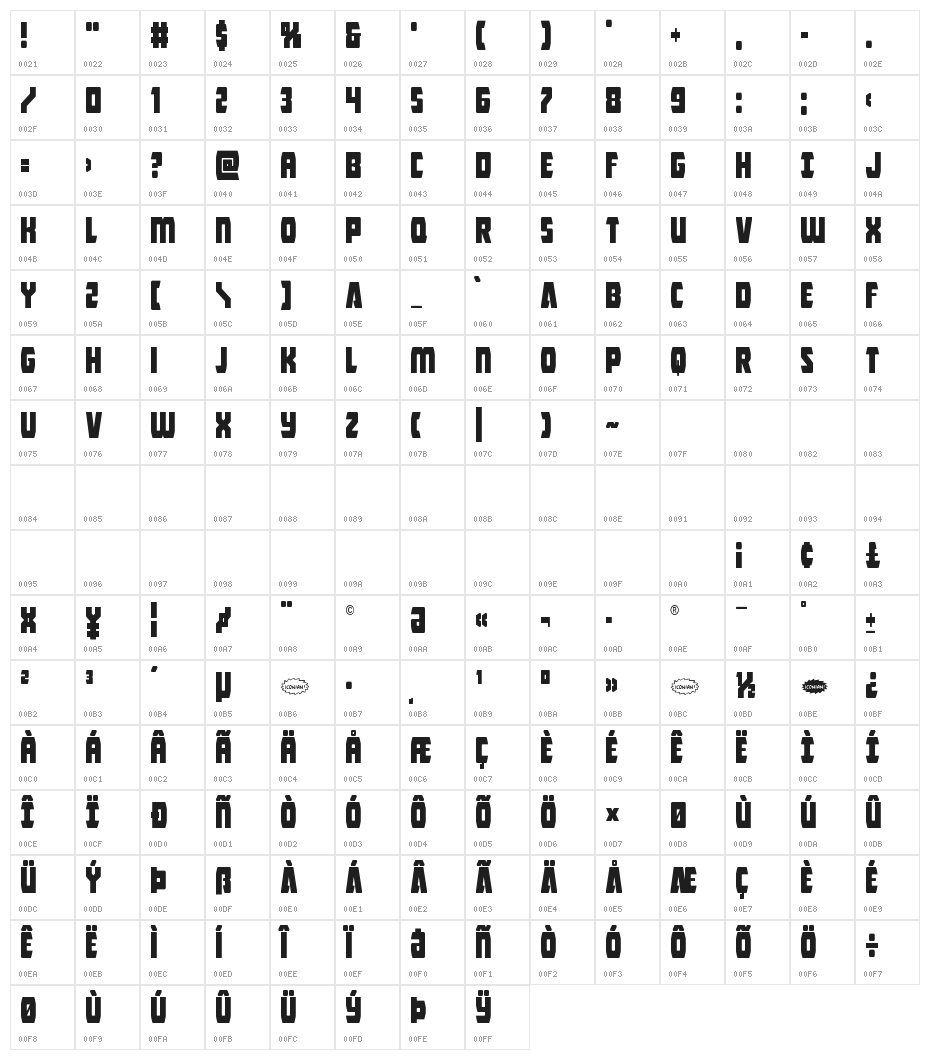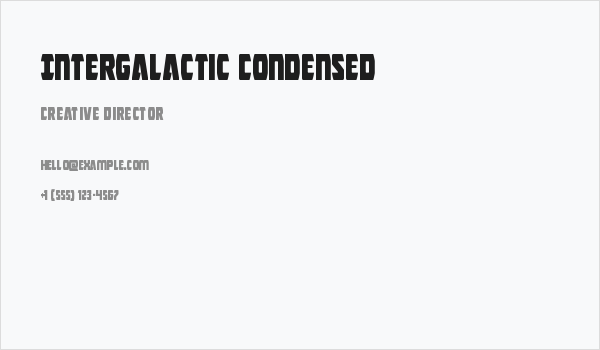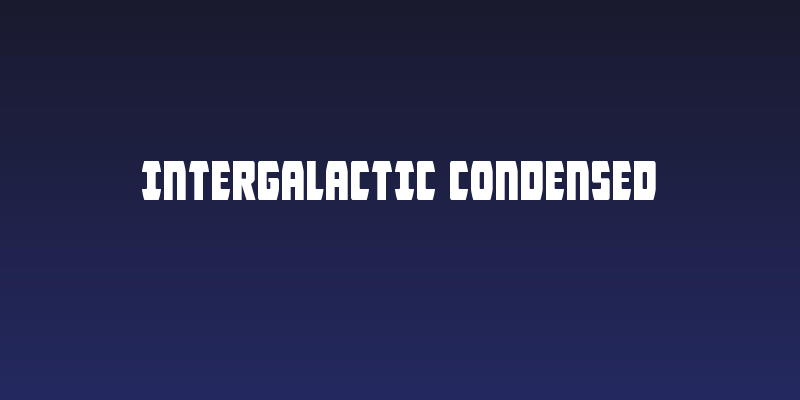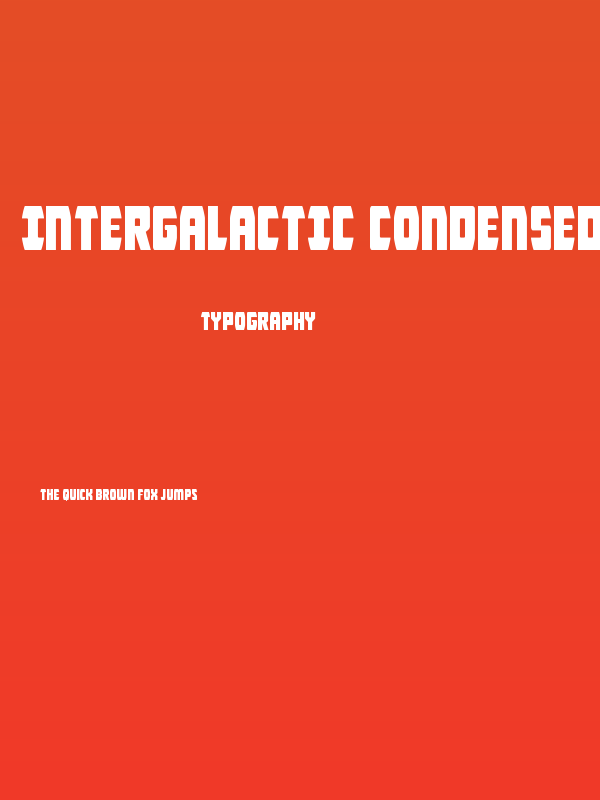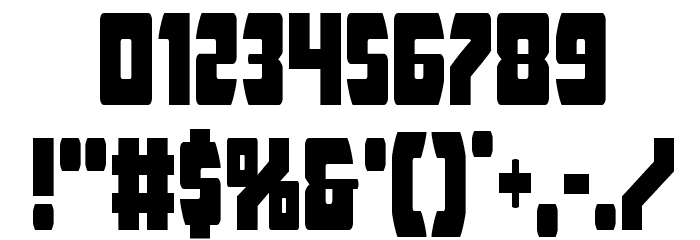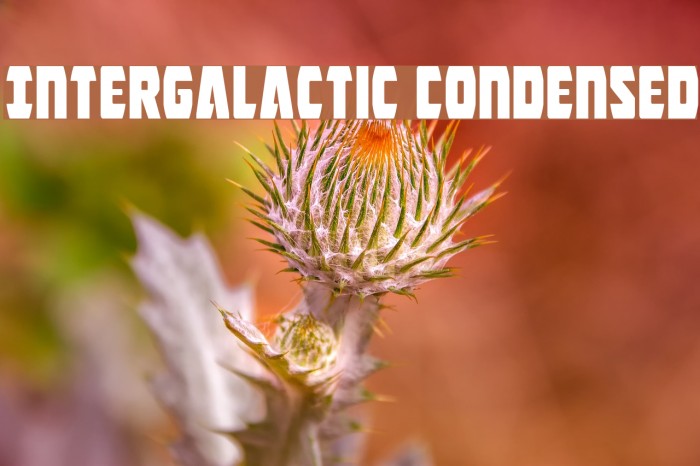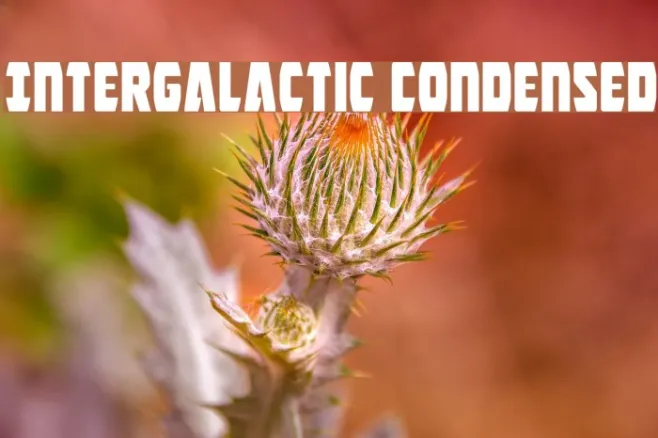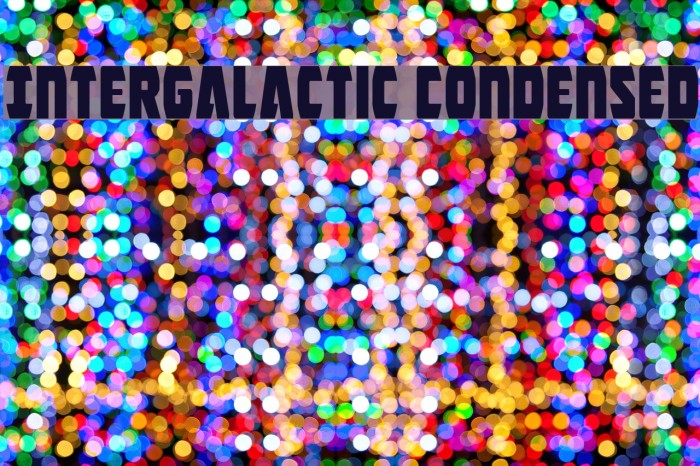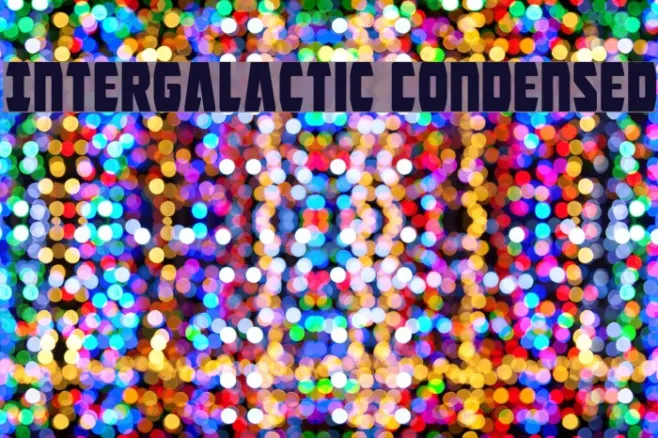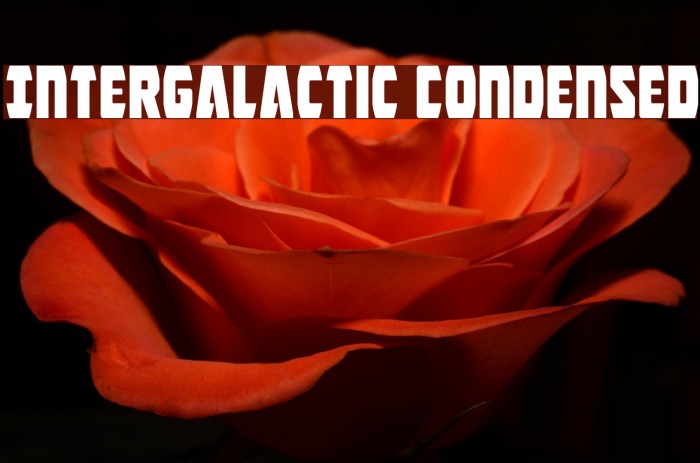
Intergalactic Condensed Font
Intergalactic Condensed Description
This font features a bold, futuristic design with a condensed structure, making it ideal for impactful headlines and titles. The characters are blocky and geometric, with sharp angles and a uniform stroke width that gives it a strong presence. The uppercase and lowercase letters maintain a consistent style, while the numerals and special characters complement the overall aesthetic. Its condensed nature allows for efficient use of space, making it suitable for projects where space is limited but impact is necessary.
| Proposed Projects | Perfect for sci-fi themed posters, video game titles, branding for tech companies, and any project requiring a modern, space-inspired look. |